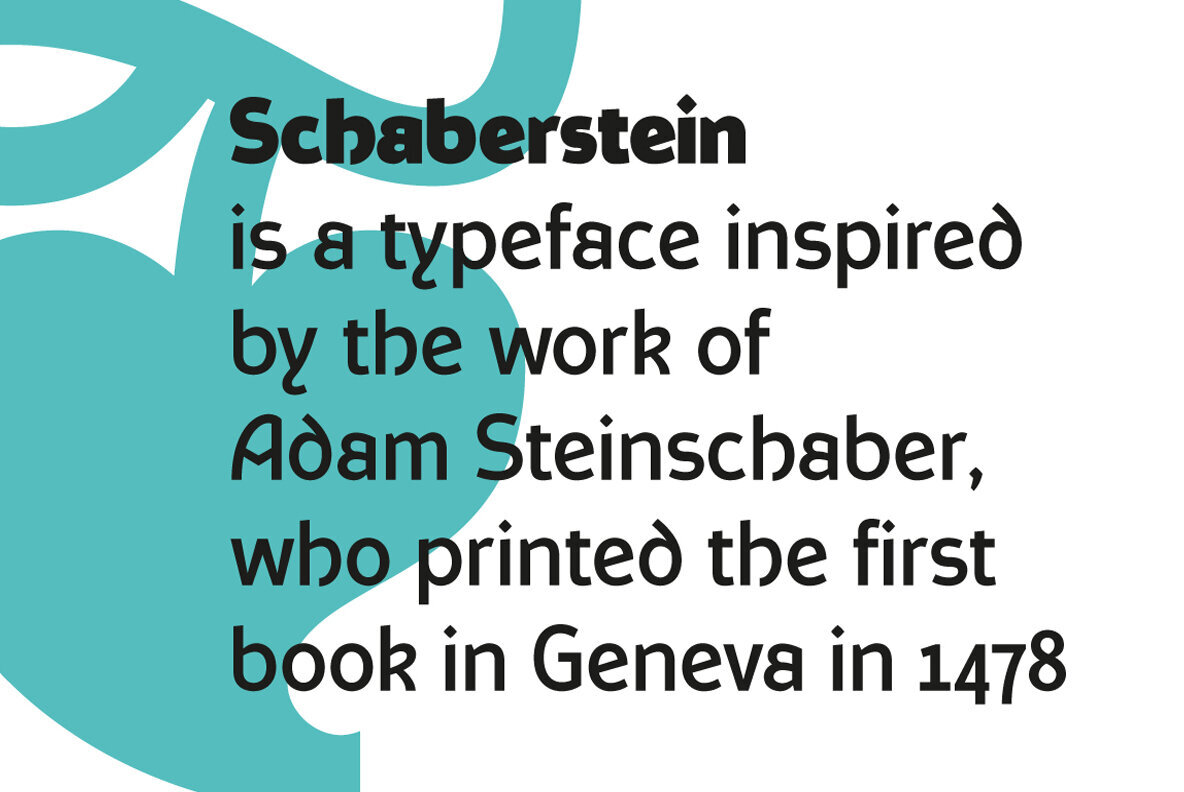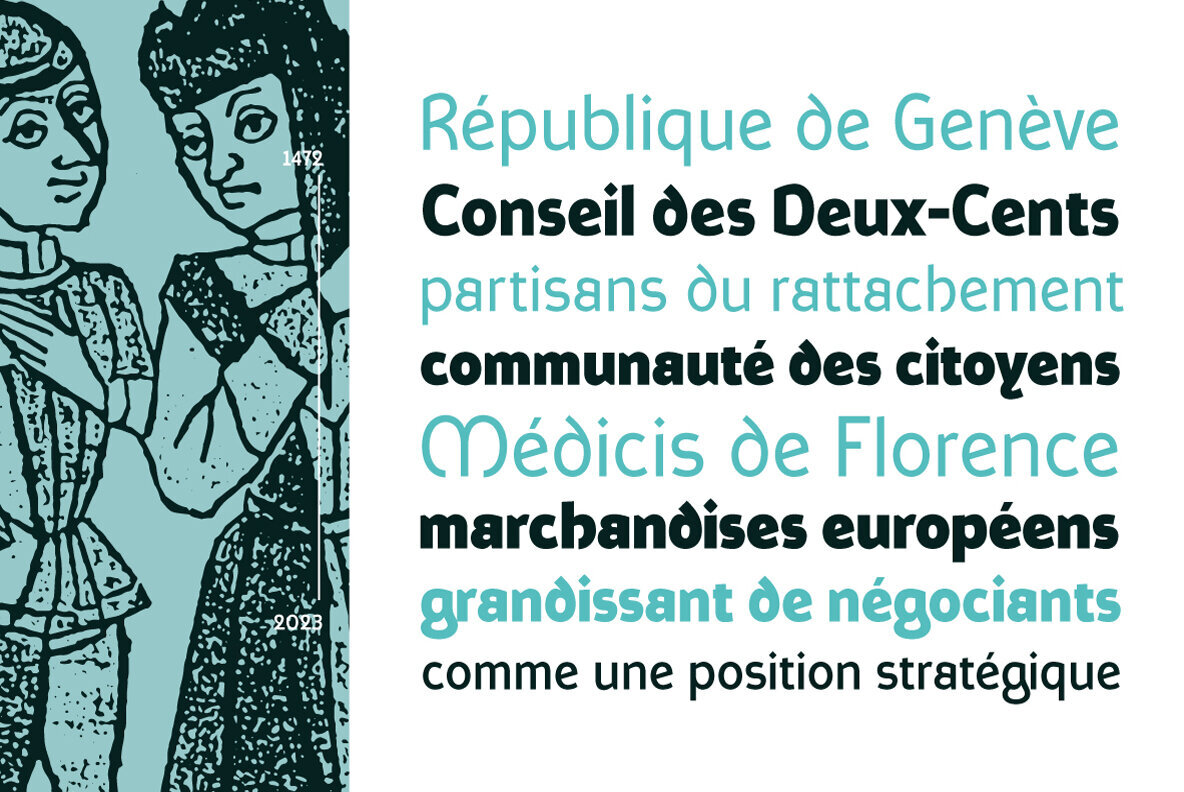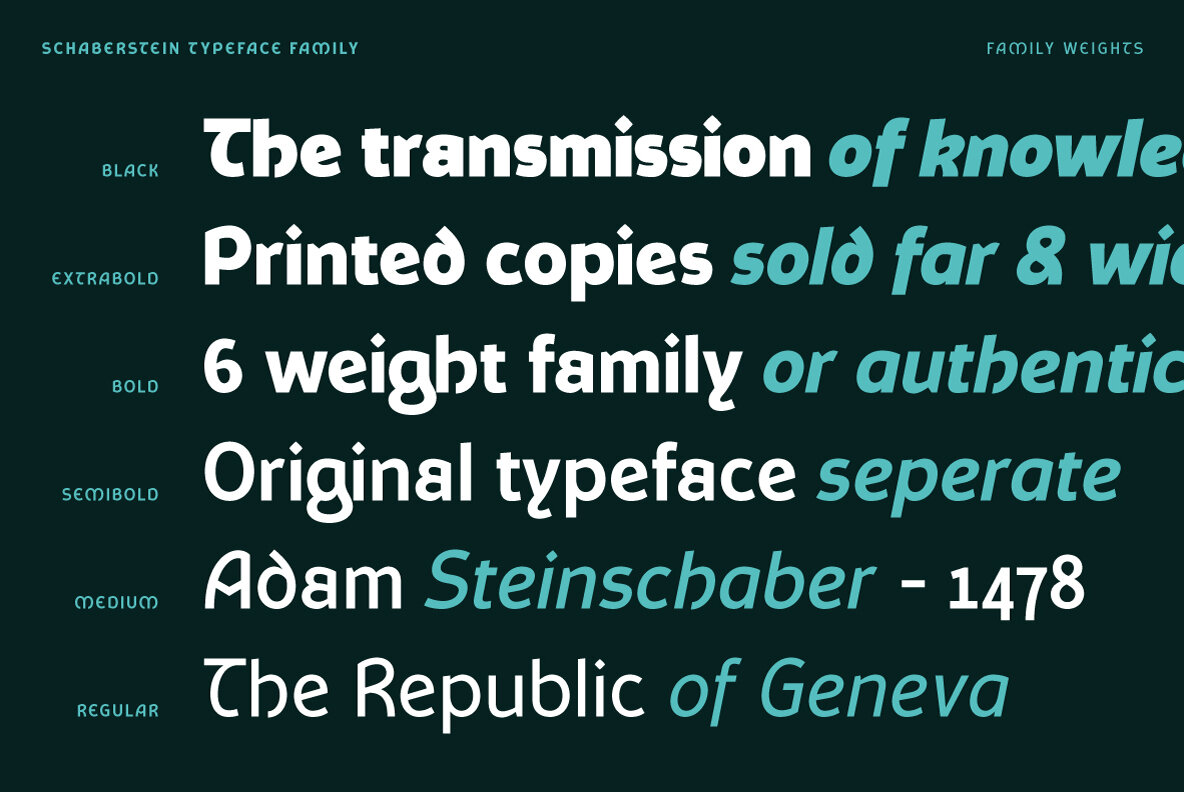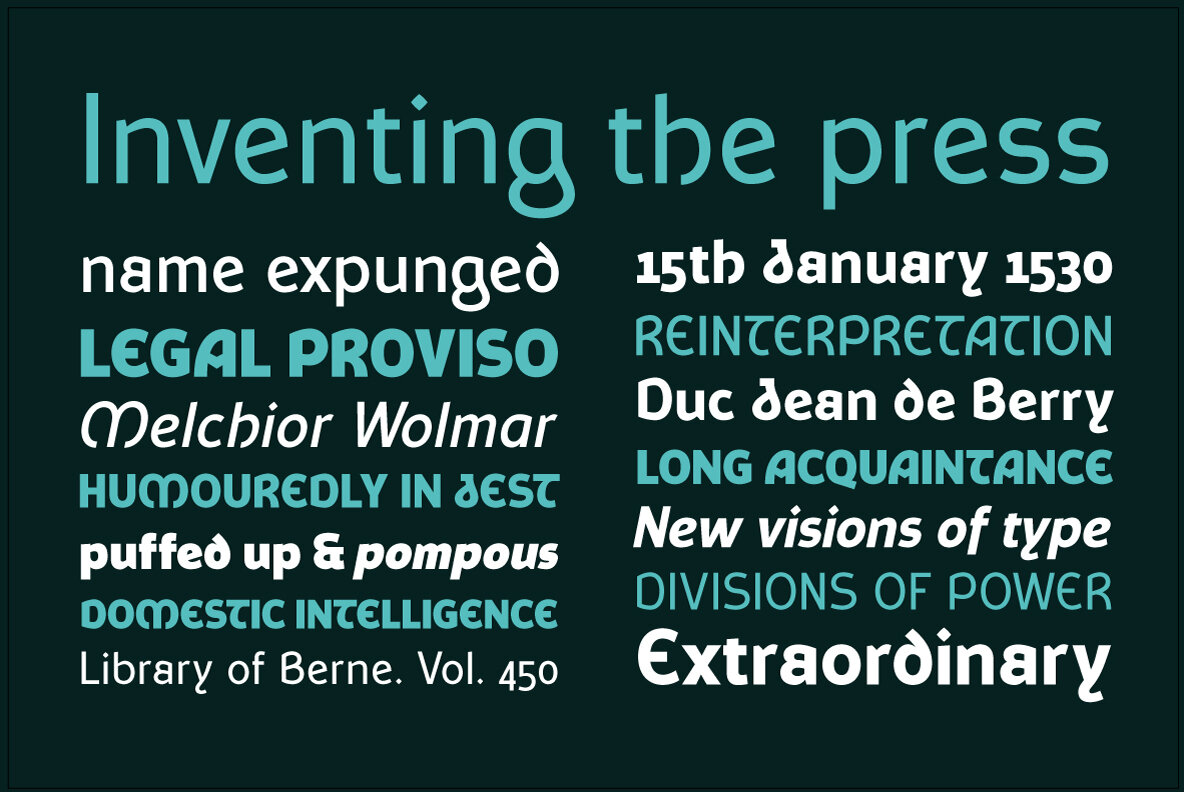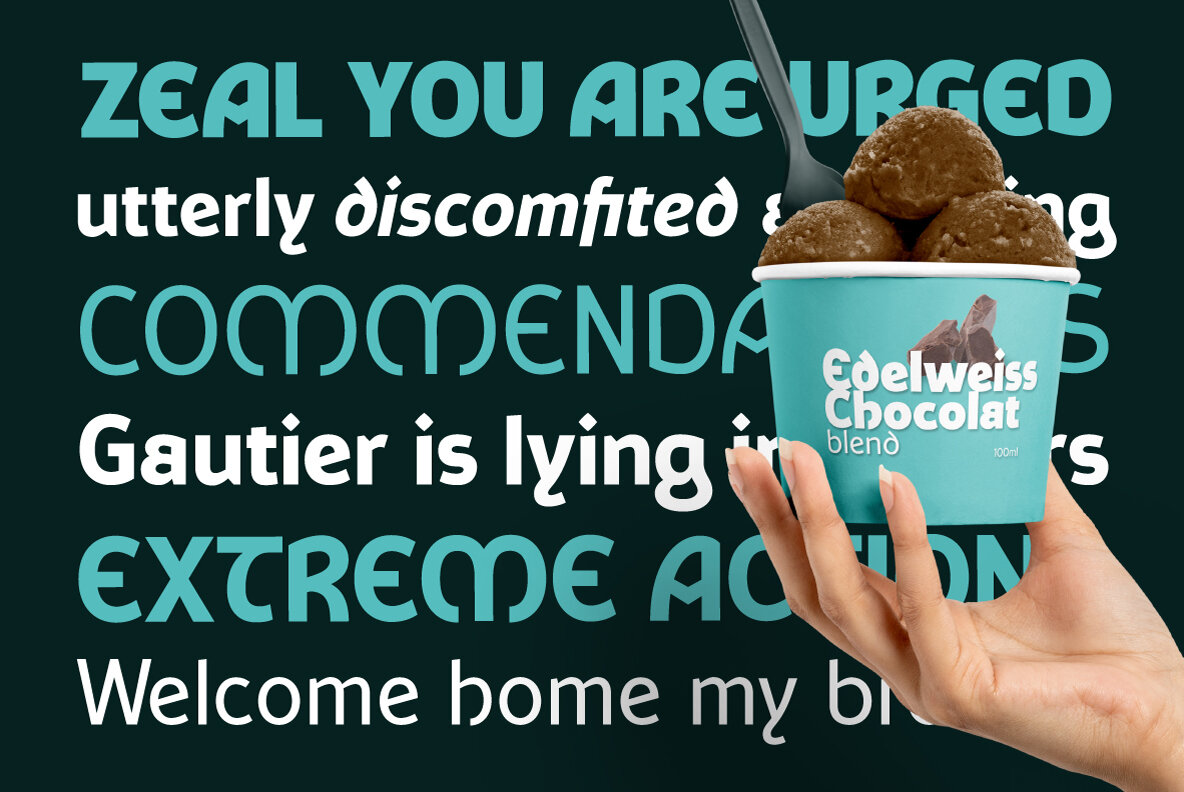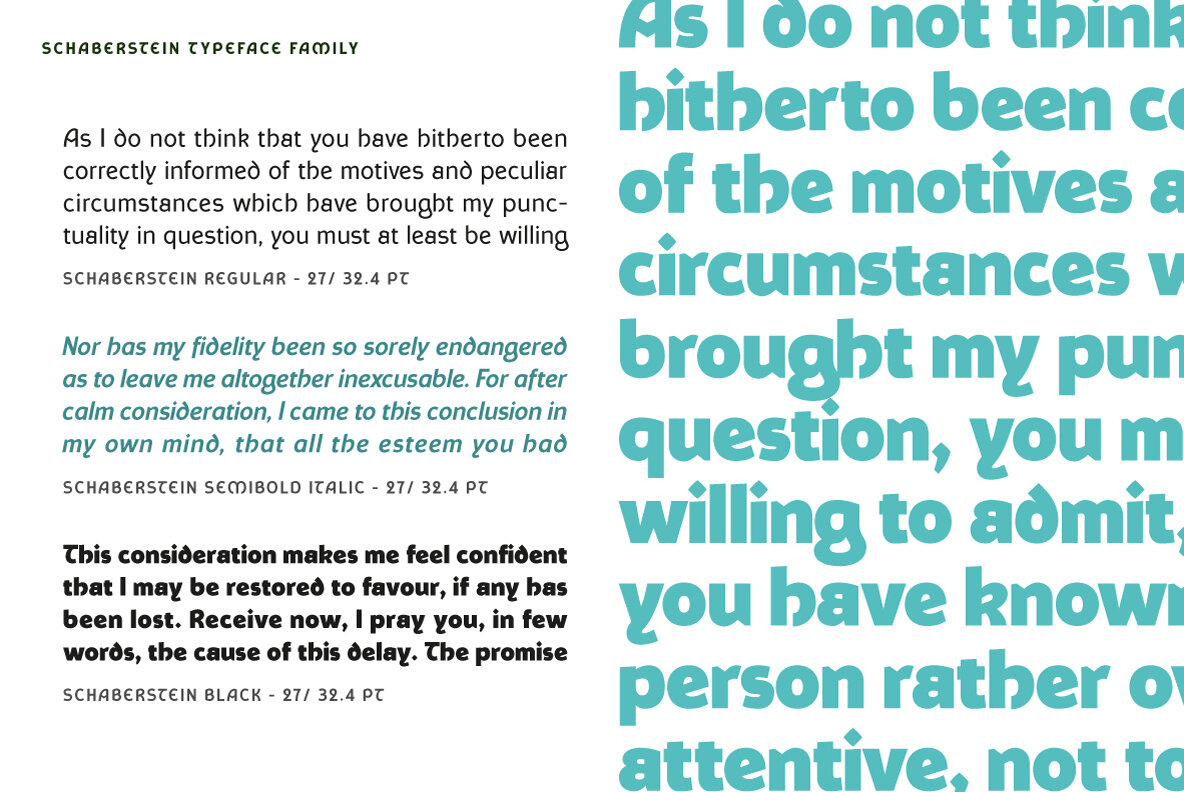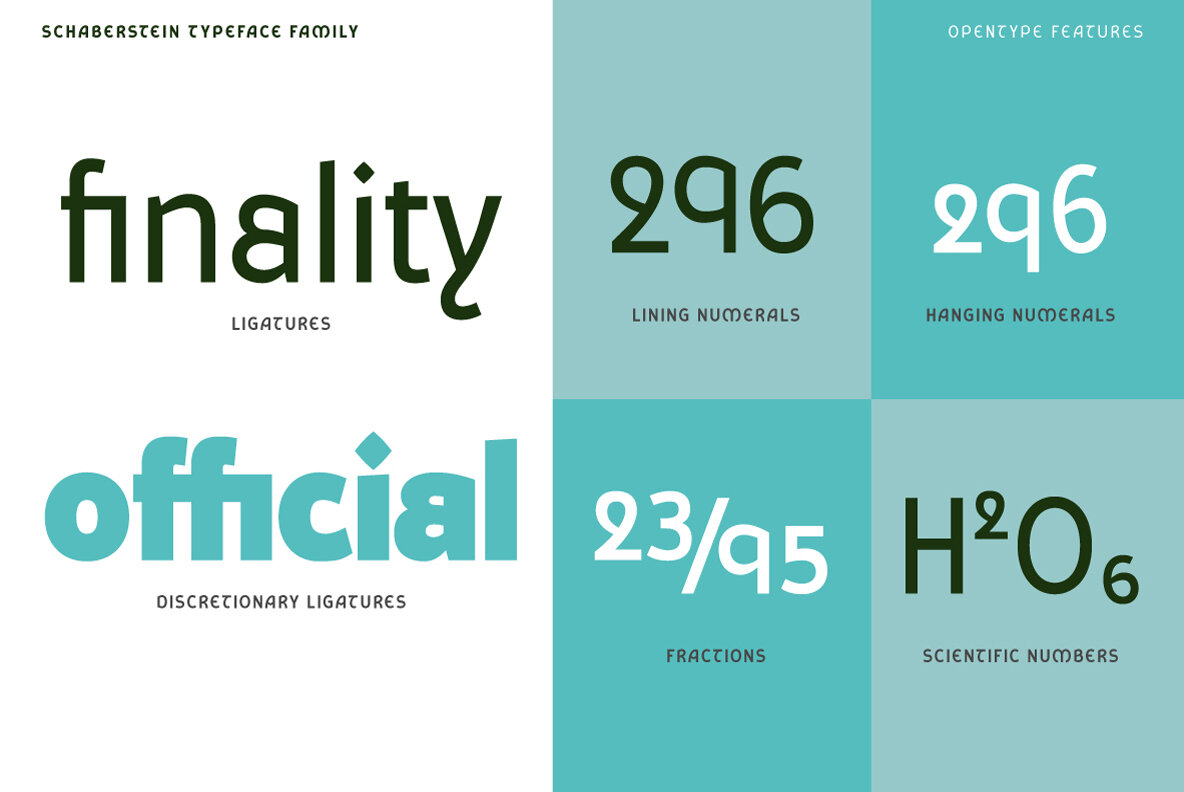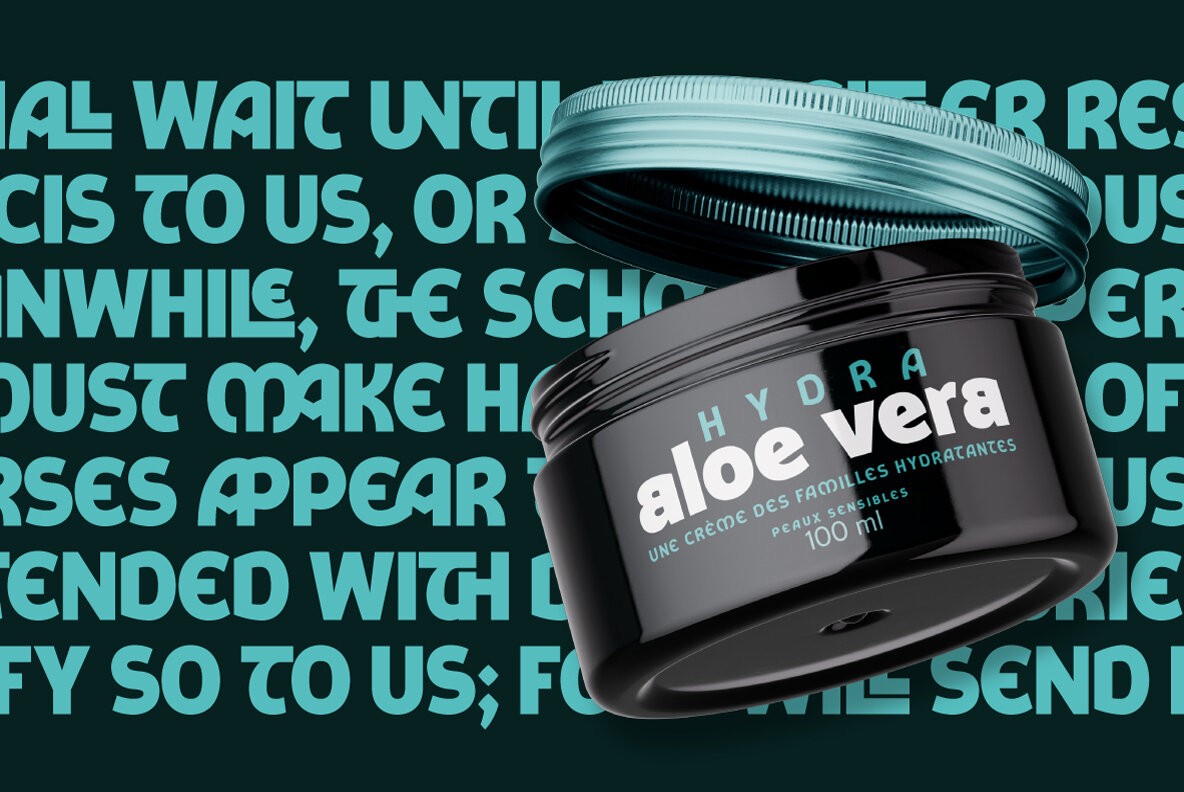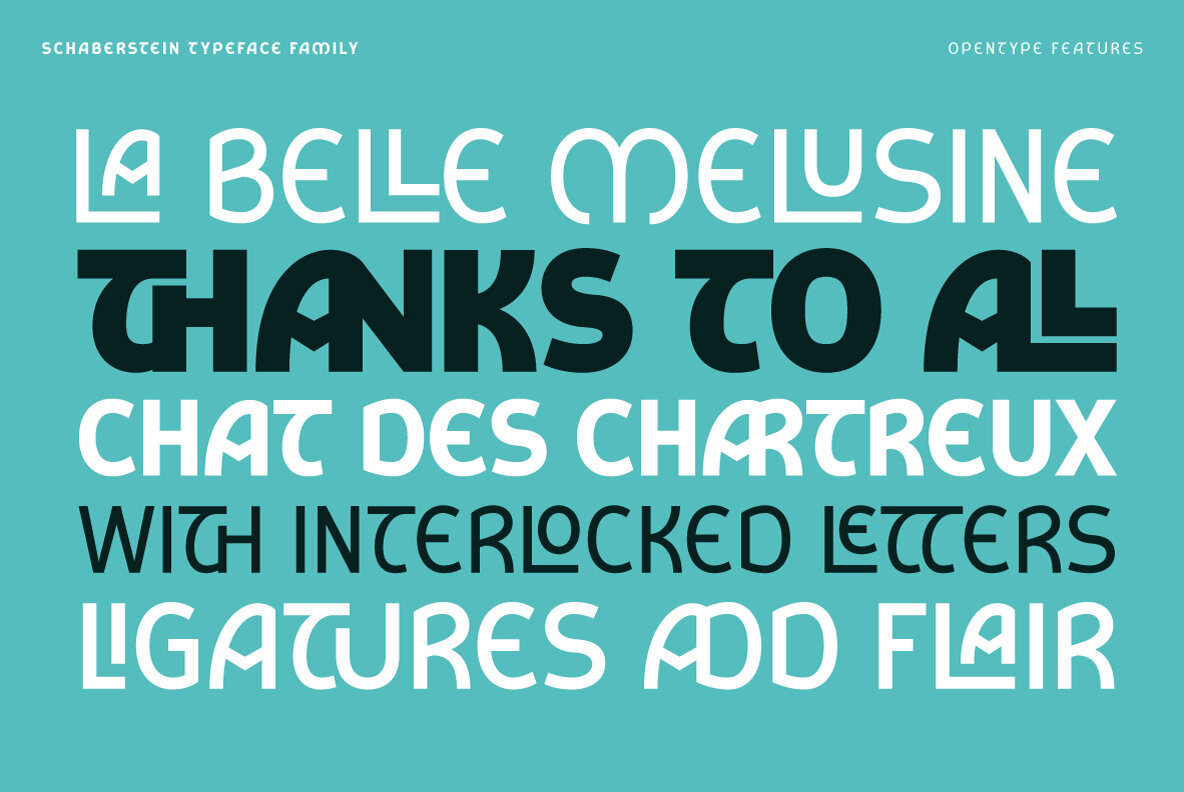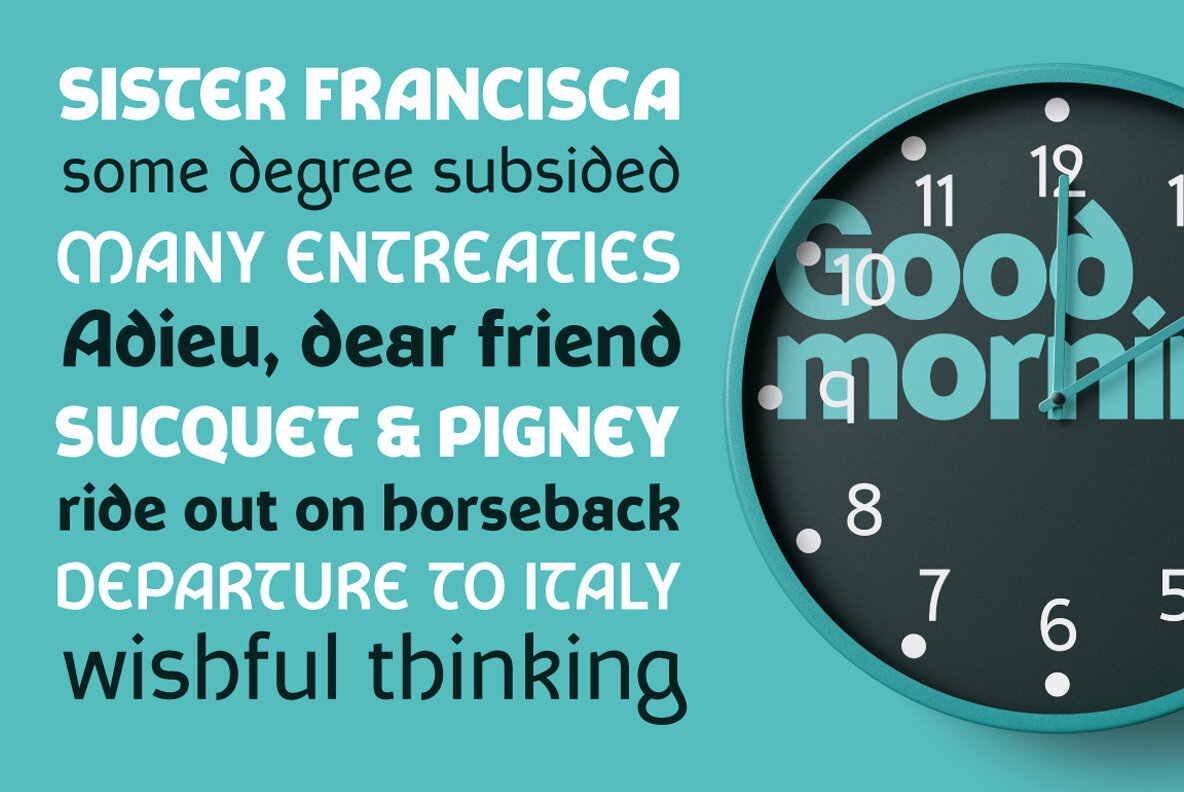
Schaberstein Font
Schaberstein is a sans serif family that reinterprets the typeface, Steinschaber, used by the first printer in Geneva. With six weights, ranging from regular to black, this family offers a unique voice with its distinctive letter forms. Whether in headlines or in longer passages of text, Schaberstein retains a good legibility and strong identity. With a full latin character set and the Opentype features, the typeface can be further expanded to a wide range of languages or applications. This family is available as a Variable font or as individual weights. This typeface and the secondary family, Steinschaber, are part of the Forgotten Printer collection that aims to celebrate the work and life of Adam Steinschaber who introduced printing to the city.